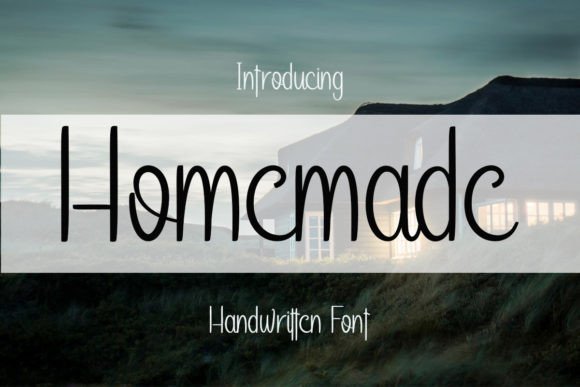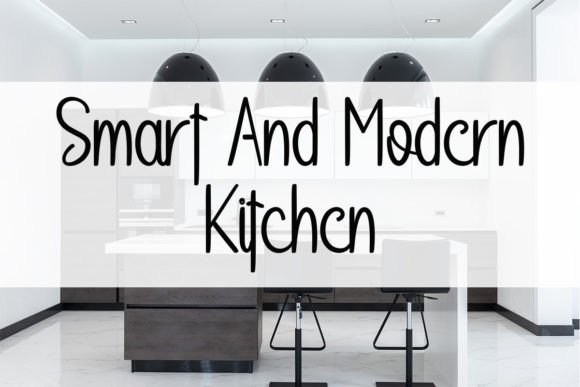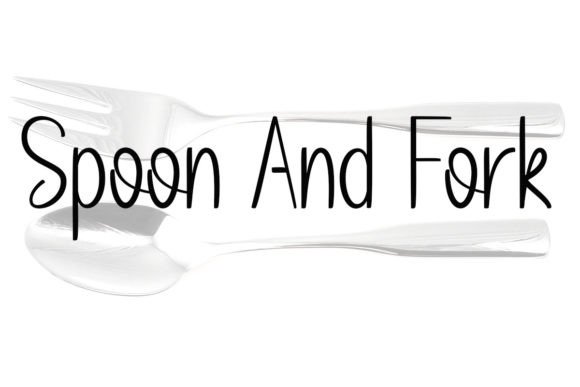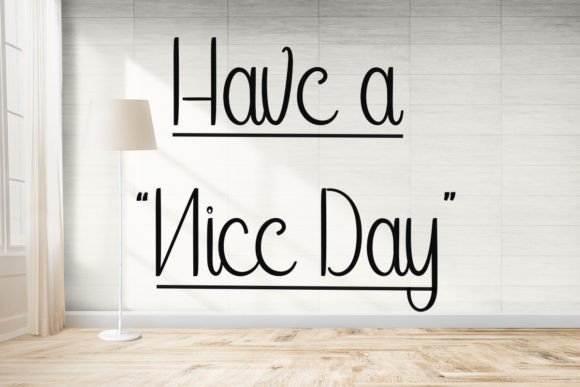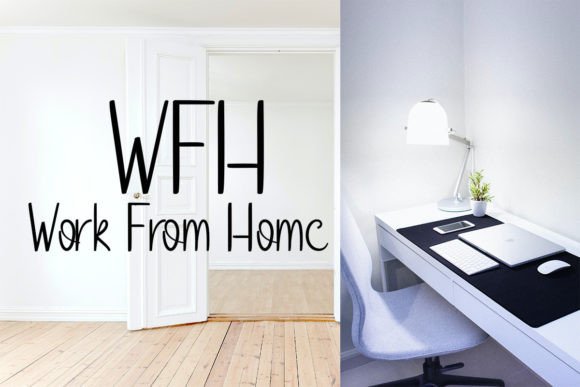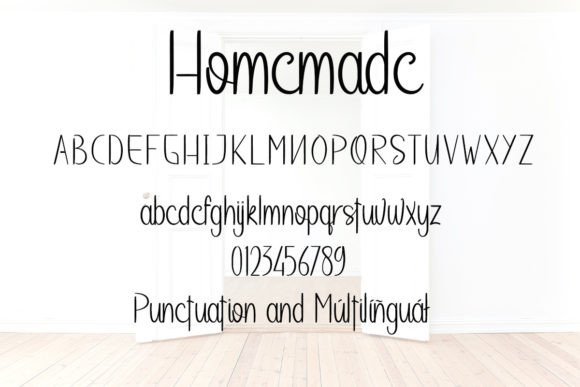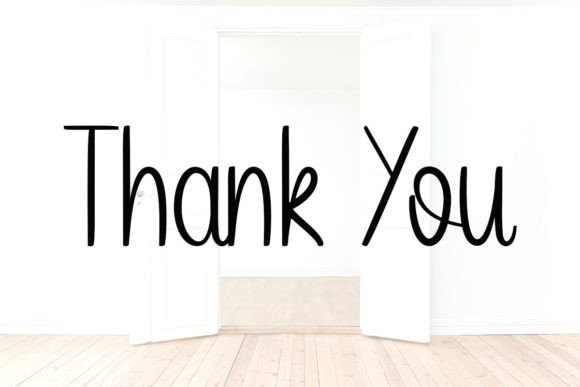
Homemade Font
About Homemade Font
The Homemade Font Download is a lively and approachable handwritten typeface that captures a cheerful, playful spirit. Designed with simplicity and friendliness in mind, it has a natural handwritten flow that makes it easy to use across a wide range of creative projects. Whether you’re crafting personalized invitations, branding a small business, or designing social media graphics, Homemade adds warmth and authenticity to your work.
Its charm comes from its casual strokes, which make text feel more personal and welcoming. Unlike rigid or formal fonts, Homemade stands out for its ability to create approachable designs that connect with audiences on an emotional level.
Features of Homemade Font
When you choose the Homemade Font Download, you gain a versatile tool with features that make it suitable for both professional and personal projects:
• Playful handwritten design with a natural flow
• Complete set of uppercase, lowercase, numbers, and punctuation
• PUA encoded for easy use of special characters
• Excellent readability in both print and digital formats
These features allow designers to seamlessly integrate Homemade into projects of any style or scale.
Best Uses for Homemade Font
The Homemade Font Download adapts effortlessly to multiple design purposes. Thanks to its friendly personality, it brings charm and creativity wherever it’s used. Some of the most popular applications include:
• Greeting Cards & Invitations – Perfect for birthdays, weddings, and casual celebrations
• Branding & Logos – Great for handmade shops, creative businesses, or lifestyle brands
• Quotes & Posters – Adds a playful touch to motivational or inspirational sayings
• Product Packaging – Works beautifully on labels, tags, and wrapping for handmade or boutique products
• Social Media Content – Enhances Instagram posts, stories, and marketing visuals with personality
• Craft Projects – A natural fit for scrapbooking, DIY crafts, and personalized gifts
By adding Homemade to your collection, you ensure your projects radiate joy and creativity.
Why Designers Love Homemade Font
The Homemade Font Download is loved for its versatility and cheerful design. Unlike fonts that feel overly polished or impersonal, Homemade has a unique character that mimics the warmth of real handwriting. Designers enjoy how easily it pairs with other fonts, especially clean sans-serifs or bold display fonts.
This flexibility allows Homemade to shine in countless contexts—from professional branding to personal DIY creations. Its balance of friendliness and clarity ensures that it remains stylish without sacrificing readability.
The Homemade Font Download is a delightful handwritten script that brings creativity and fun to any project. With its playful strokes and approachable design, it enhances both professional and personal work. From greeting cards and packaging to social media graphics and branding, Homemade offers endless opportunities for creative expression.